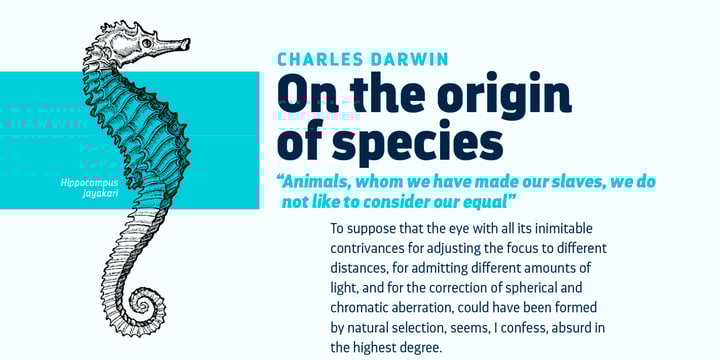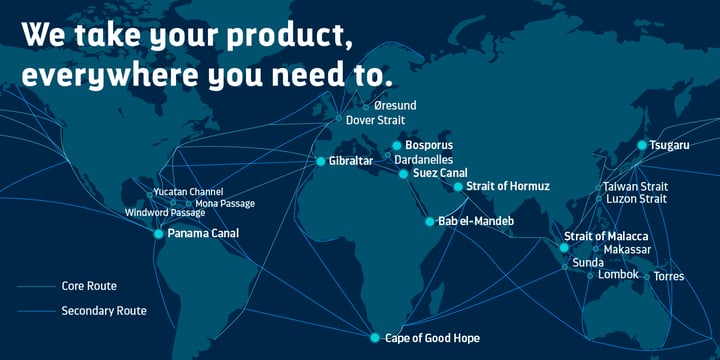
Darwin Pro
by Los Andes
The Darwin Pro Font Family was designed by and published by Los Andes. Darwin Pro contains 14 styles and family package options.
Darwin Pro, the sequel to Darwin, is ready to leave port and start new adventures. The font was redrawn, the language support was extended and a new set of figures was added. Darwin Pro comes in 7 weights plus italics and includes alternative characters available as an OpenType feature as well as oldstyle figures, numerators and denominators.
About Los Andes
Located in Concepción, Chile, Los Andes was established in 2011 by Daniel Hernandez, Miguel Hernandez and Luciano Vergara as a spin-off of LatinoType. Their goal was simple: to make typefaces that would simplify the job of the designers who used them. The young foundry published its first typeface, Pantano, that same year and the rest, as they say, is history. With talented designers such as Mendoza Vergara, Daniel Hernández, Luciano Vergara, and Miguel Hernández in its ranks, Los Andes has created a library full of vast variations including everything from bestselling headliner typefaces like Darwin to grunge-inspired rustic families like Pantano. “Our typefaces tell stories,” Luciano says, “we are inspired by travel, nature, experiences and tastes when we design typefaces.” One of their more recent releases, Garden, was inspired by the cheerful and warm people the designers encountered when visiting Brazil in 2013. A young foundry with a wide range of talents and endless inspiration, keep an eye out for more typefaces from Los Andes!